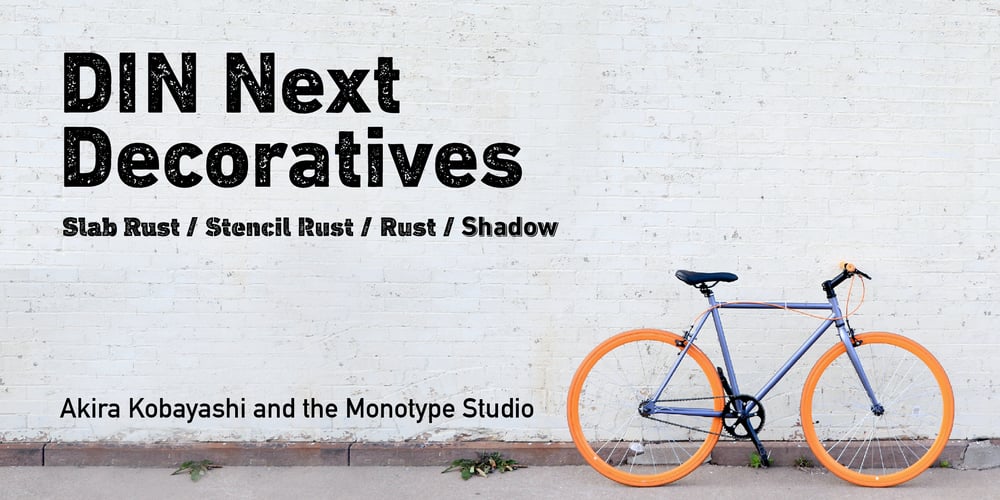
DIN Next Decorative
DIN Next Decorative font
DIN Next Decorative Font Family was designed by Akira Kobayashi, Monotype Design Studio, Sabina Chipară and published by Monotype. DIN Next Decorative contains 12 styles and family package options. This four-piece family is the DIN design, but not as you know it. The famously, crisp, clean and precise typeface has been given a textured update that’s reminiscent of rusted metal, or rubber stamps. Underneath this lies the same sturdy, geometric shapes that have allowed DIN to stand the test of time, but with a new sense of tangibility. “This kind of treatment is more about creating a feeling or a mood that goes beyond the communication of the words themselves,” explains Monotype Studio director Tom Rickner. “I think it expands the repertoire of what DIN Next can express.” Designed for display, these four typefaces – DIN Next Rust, DIN Next Shadow, DIN Next Slab Rust and DIN Next Stencil Rust – show a new side of DIN Next’s personality, as if the surface of each letterform has been gradually worn away over the years.